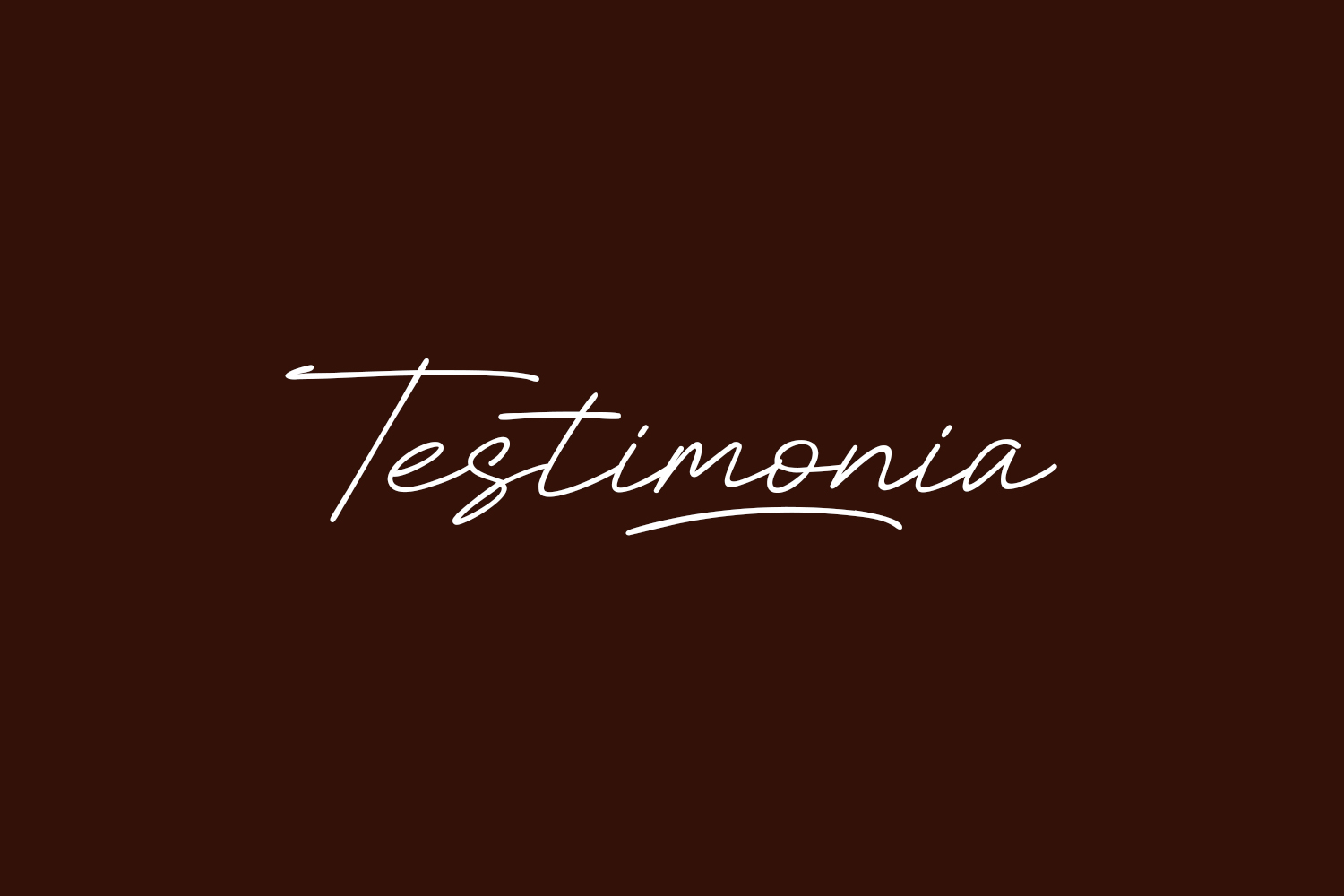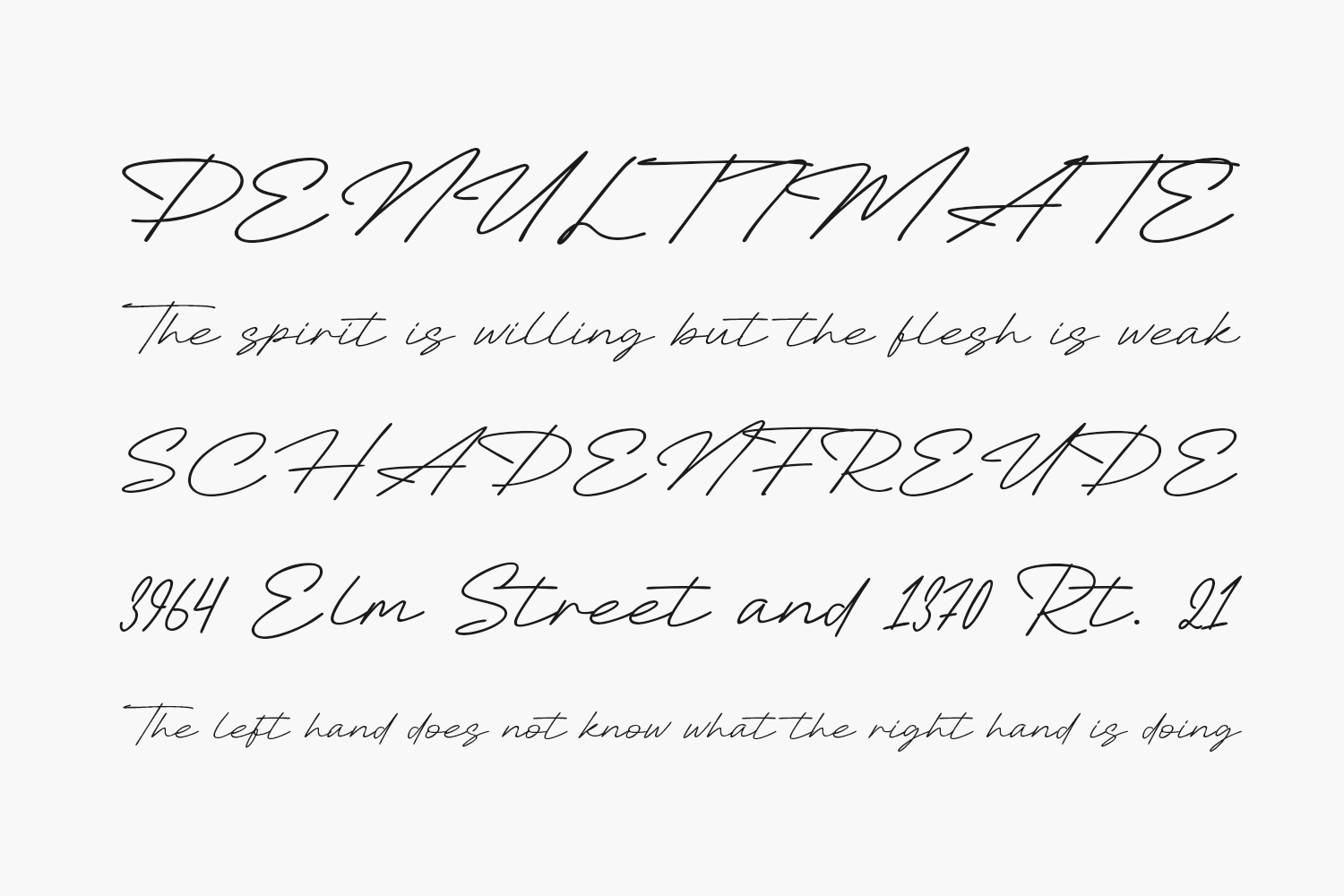
Introducing Testimonia Free Font: a script font that epitomizes cleanliness, style, modernity, and elegance. Tailor-made for an array of purposes including posters, logos, magazines, book covers, banners, and beyond. Embrace this extraordinary font to craft enchanting designs. Its seamless adaptability to a vast spectrum of projects adds a new dimension to your creative concepts, ensuring they command attention and distinction. Don’t miss the chance to elevate your designs with Testimonia. Testimonia Free Font is free for personal or commercial use.